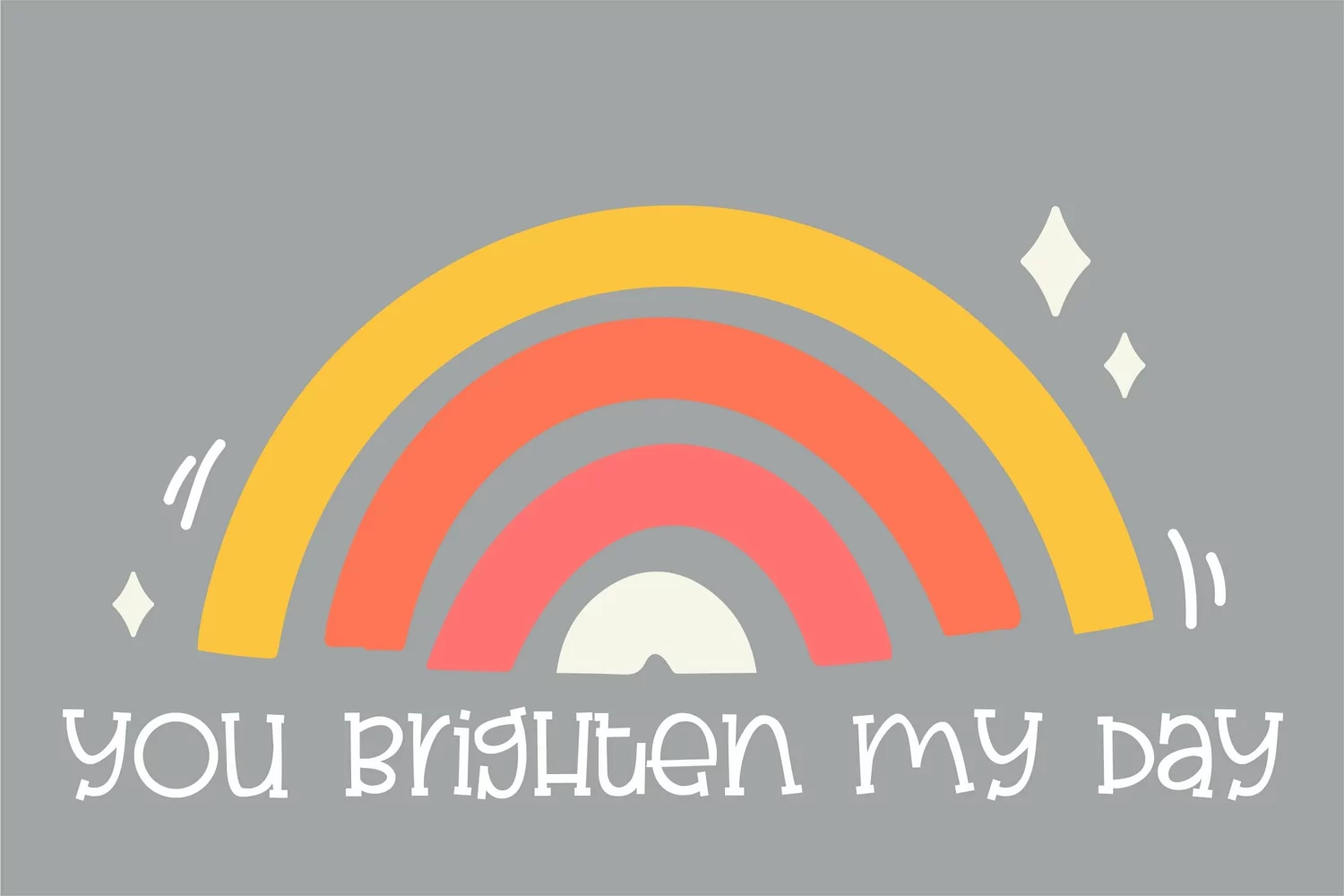
Blare Out is a chic and quirky handwritten font. Whether you’re looking for fonts for Instagram or calligraphy scripts for DIY projects, this font will turn any creative idea into a true piece of art! Includes both regular and bold.